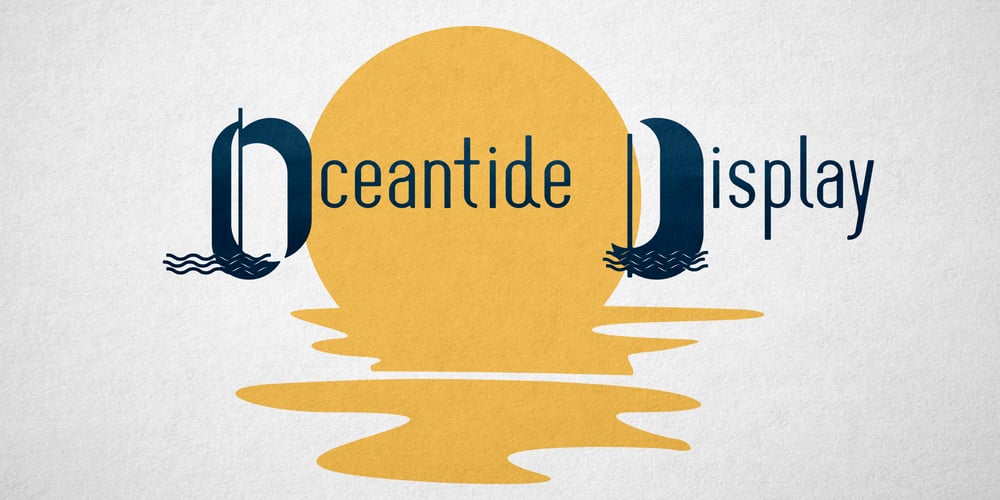
Oceantide Display Font Family was designed by Elyas Beria and published by Elyas Beria. Oceantide Display contains 1 styles and family package options. Oceantide Display is a whimsical and highly stylized nautical-themed font suitable for display use. The main focus is on standard English capital letters, with a few stylistic alternatives included. Lower case letters, numbers, and some symbols are included but are limited and there are a few limited international letters.